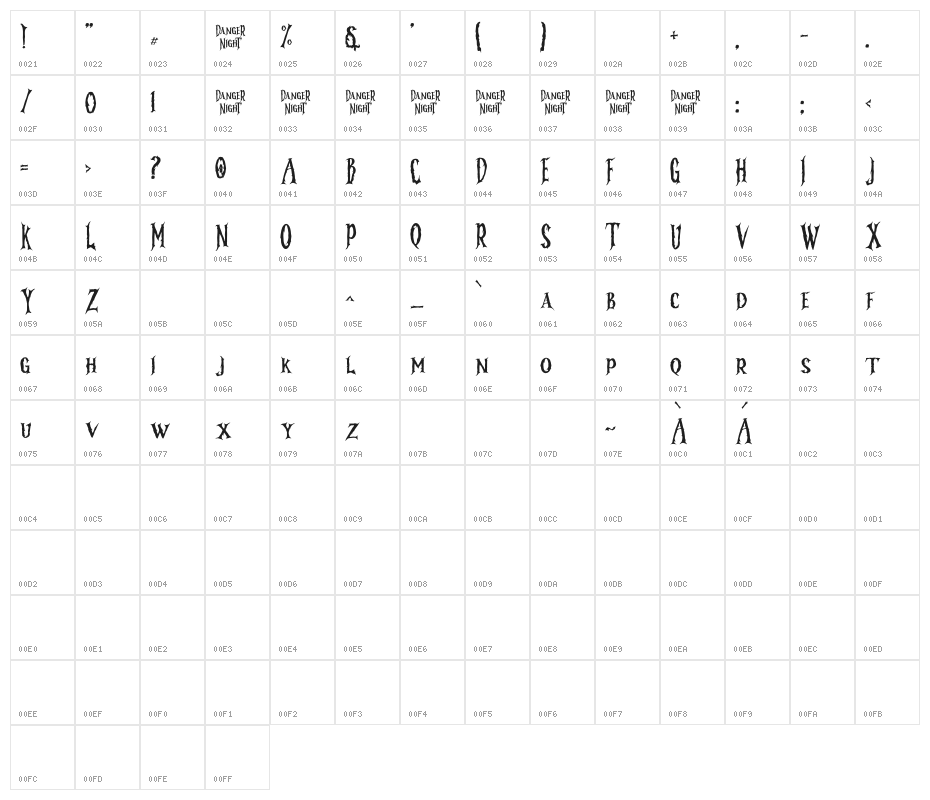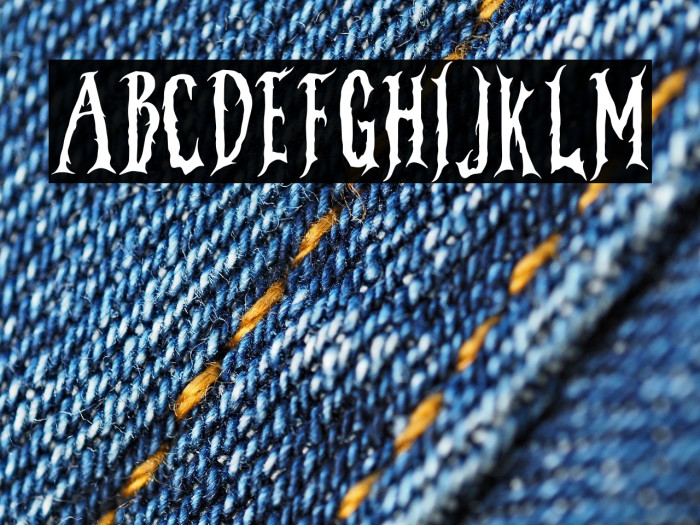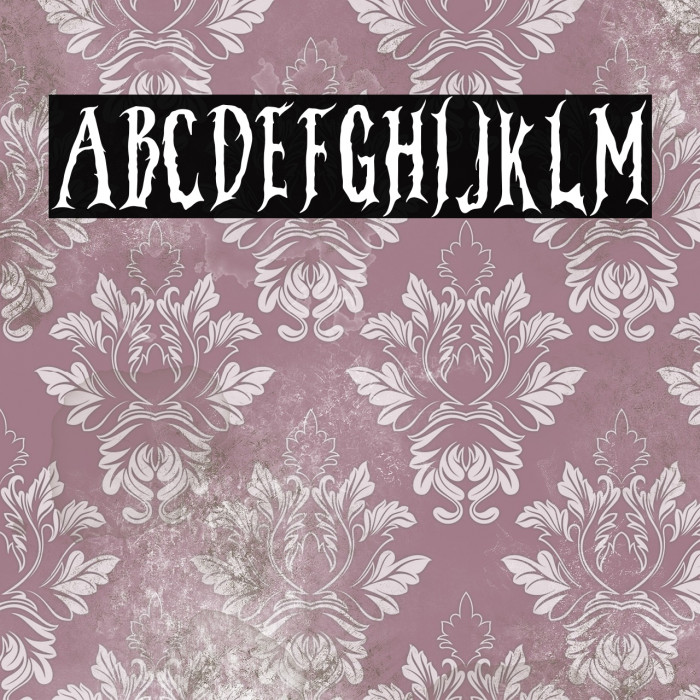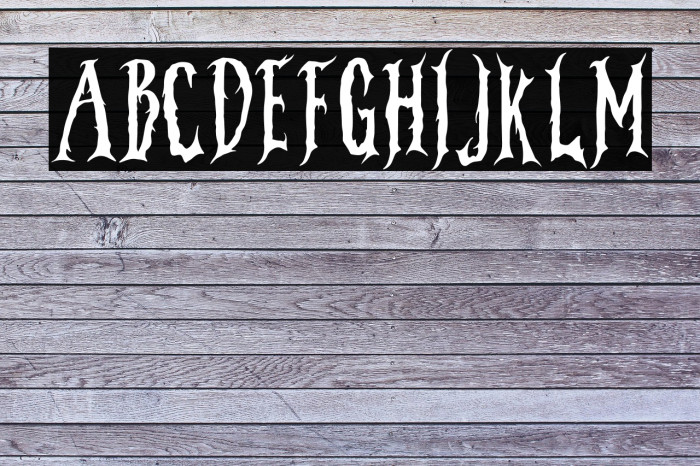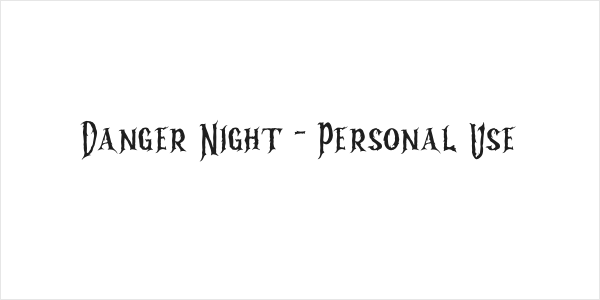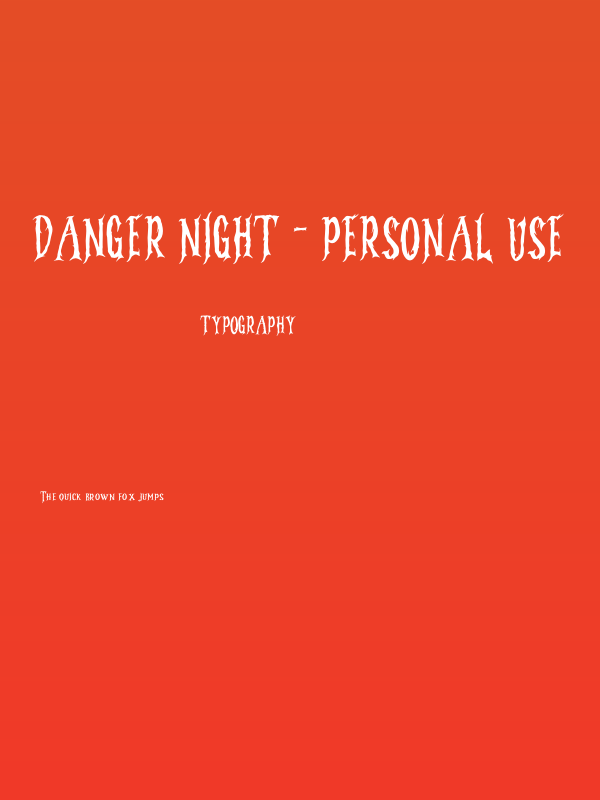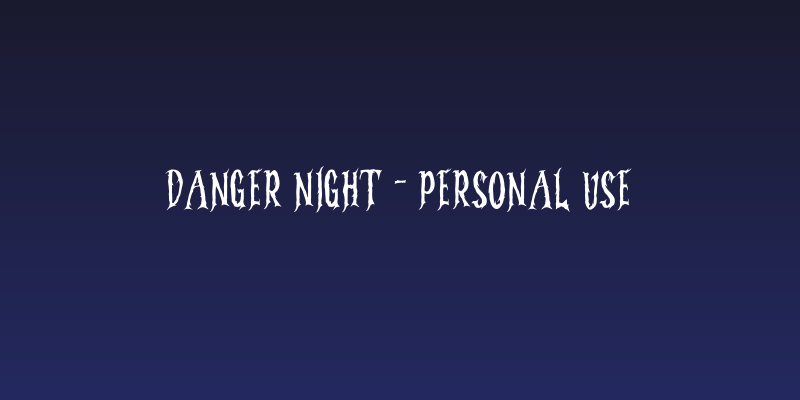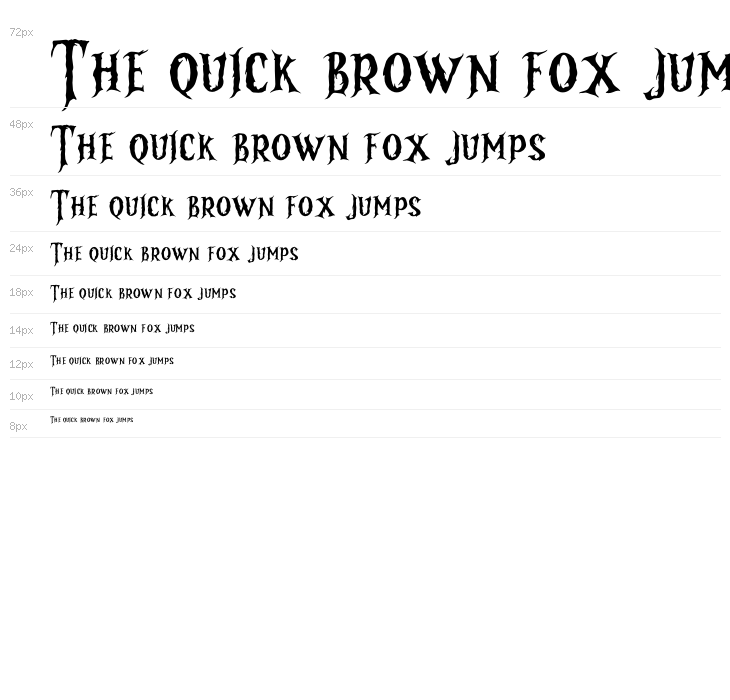
Danger Night - Personal Use Font
Danger Night - Personal Use Description
This font features a bold, jagged style that evokes a sense of danger and mystery. The characters have sharp, irregular edges, giving them a distressed and edgy appearance. The uppercase and lowercase letters maintain a consistent style, with exaggerated serifs and pointed tips. The numbers and special characters follow the same theme, ensuring a cohesive look across all elements. This font is ideal for creating a dramatic and intense atmosphere, perfect for horror-themed projects or anything requiring a bold statement. The unique design makes it stand out, capturing attention with its striking and unconventional form.
Proposed ProjectsIdeal for horror-themed posters, Halloween invitations, edgy branding, and dramatic headlines.